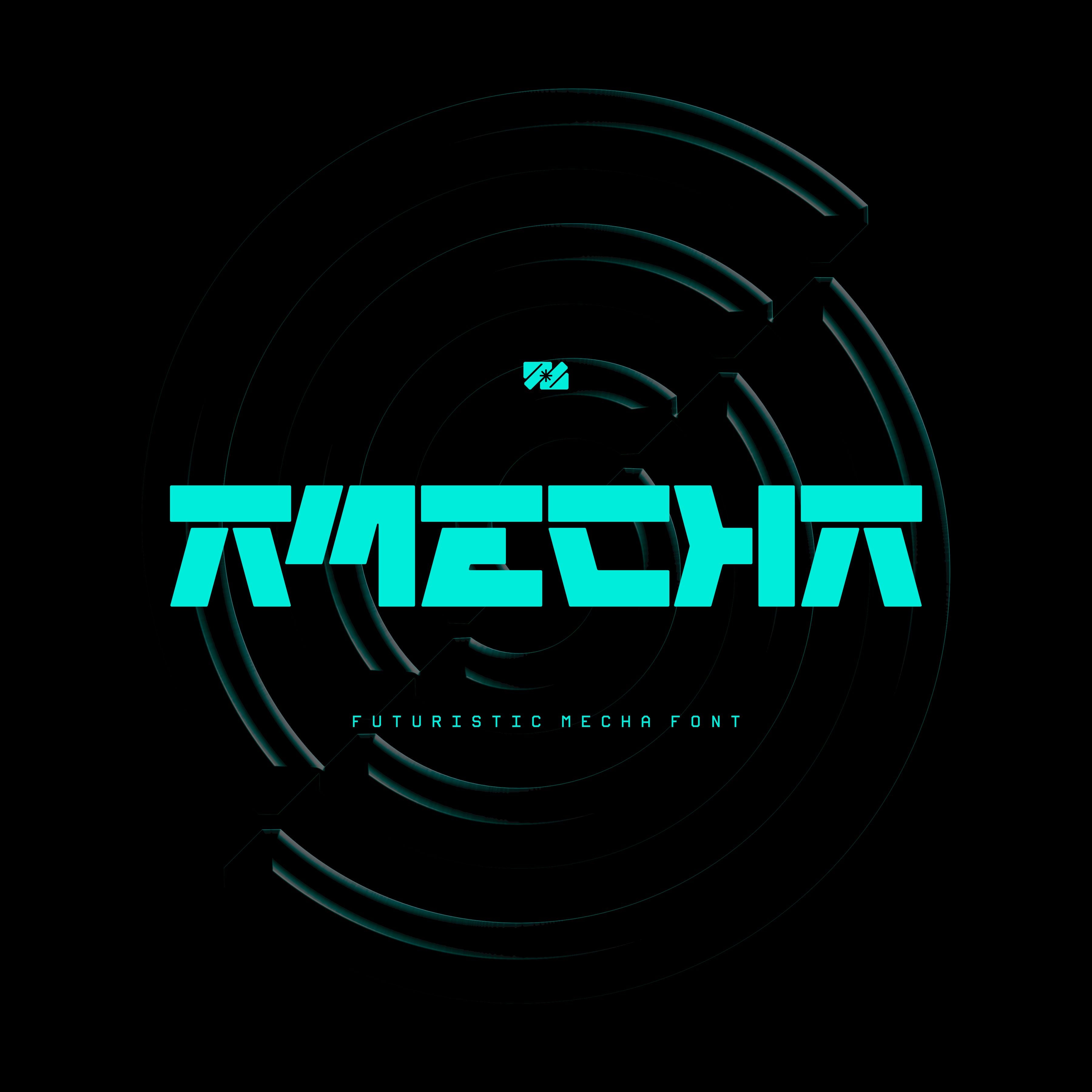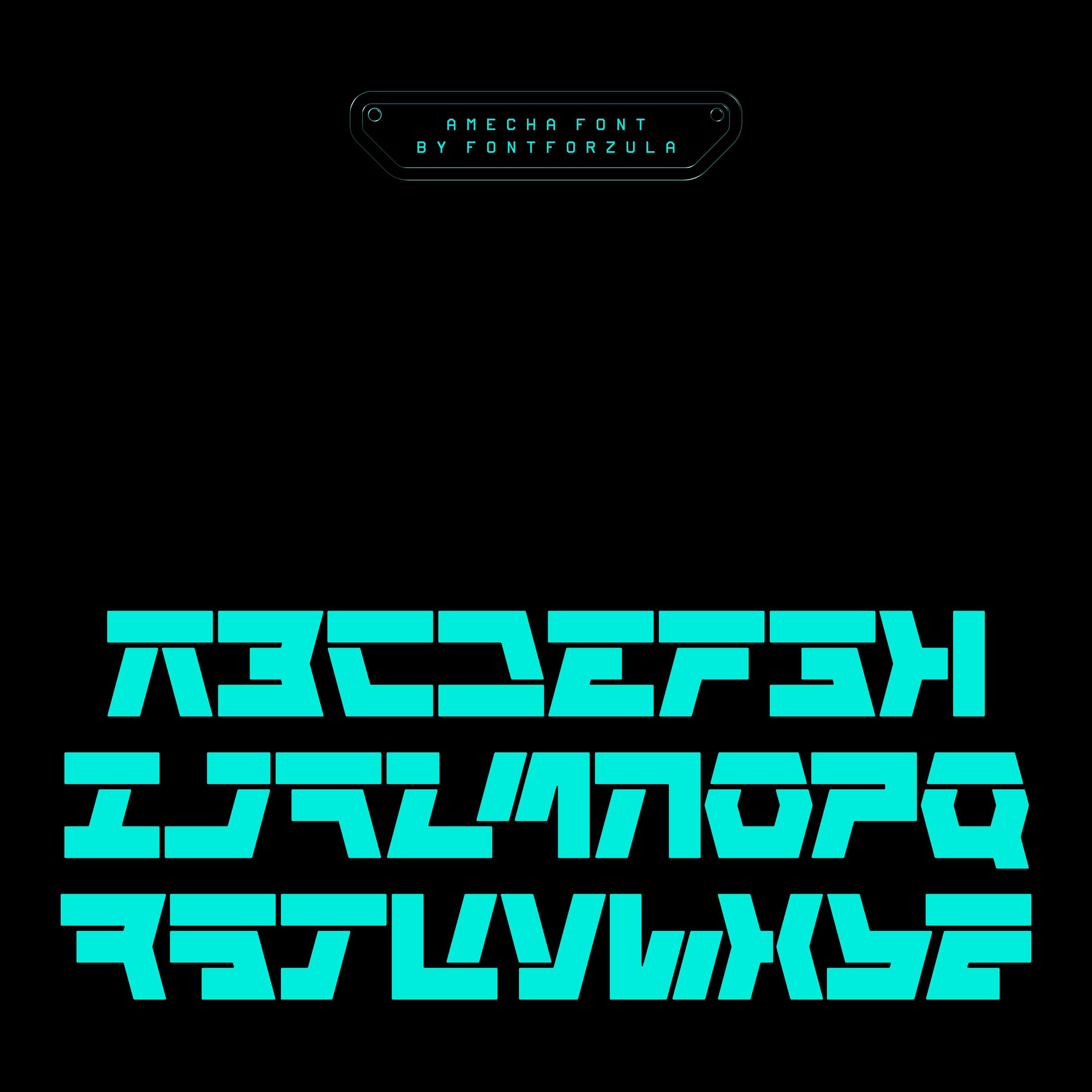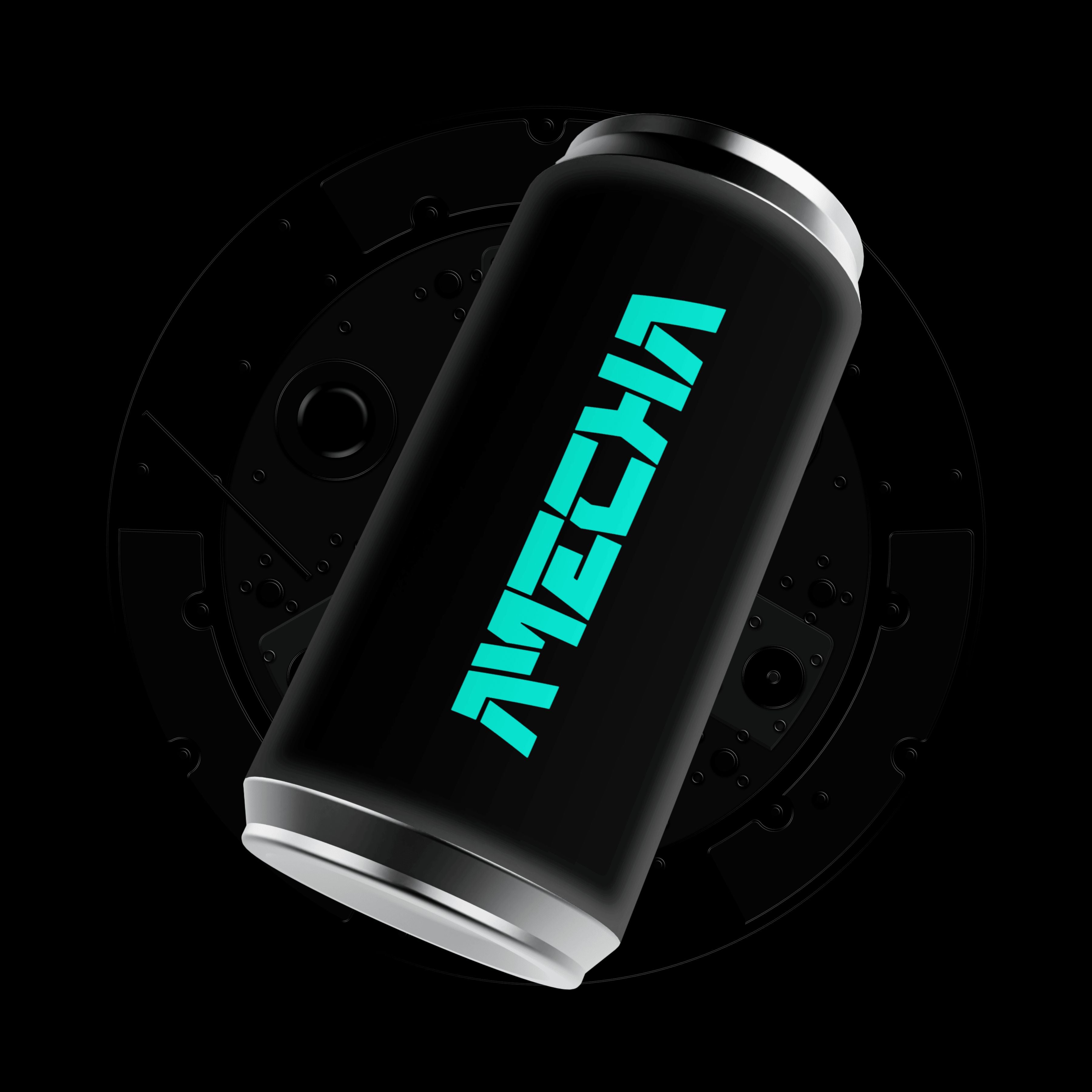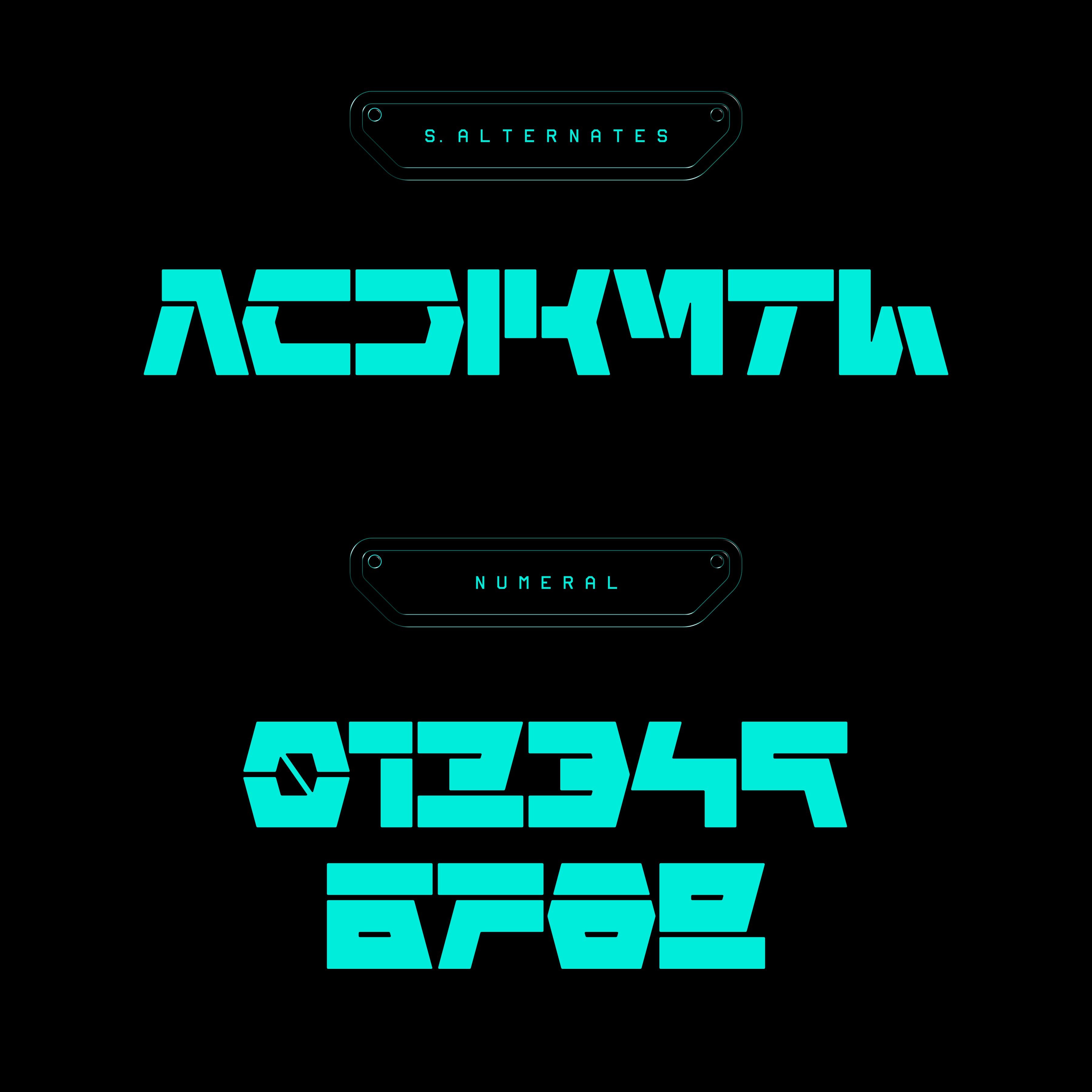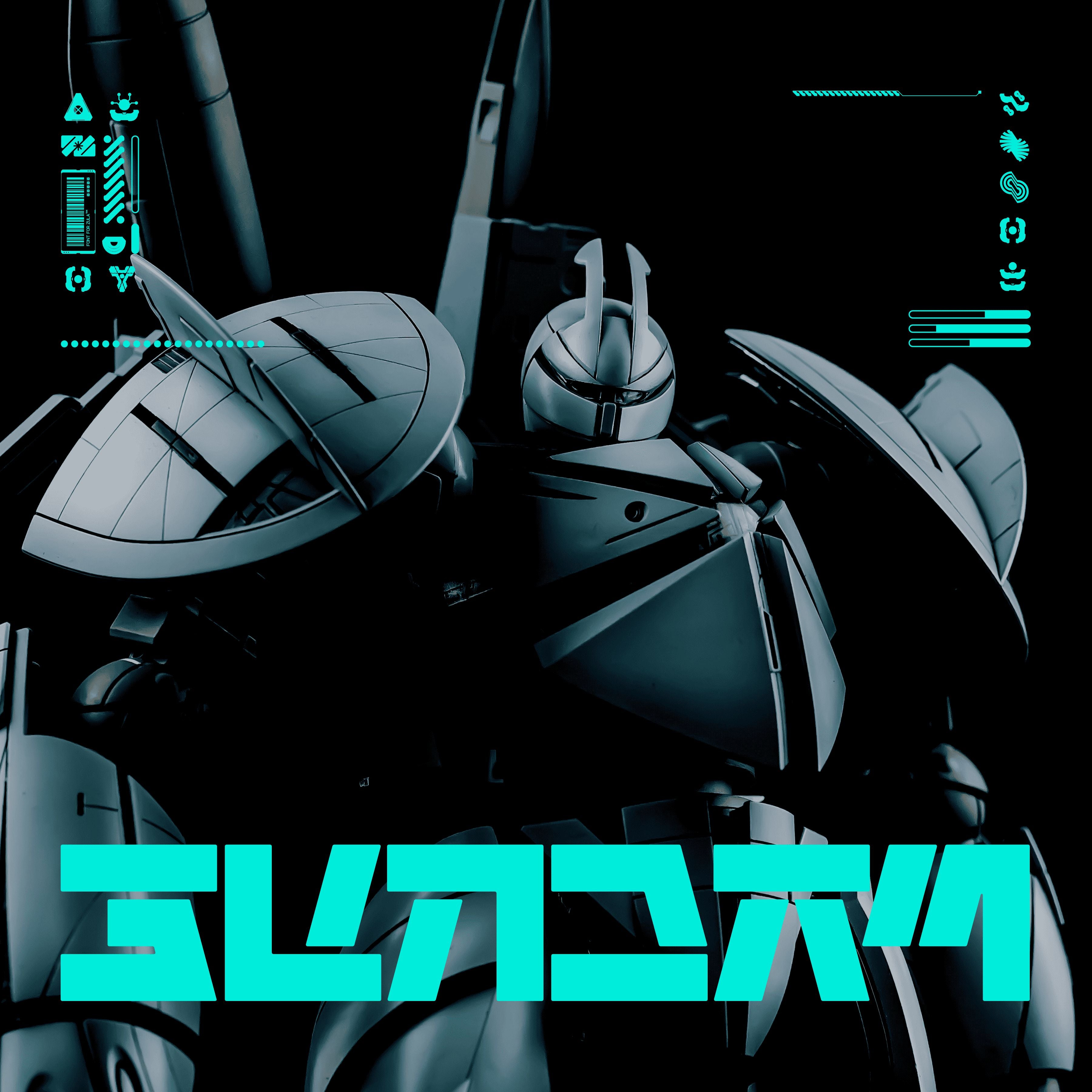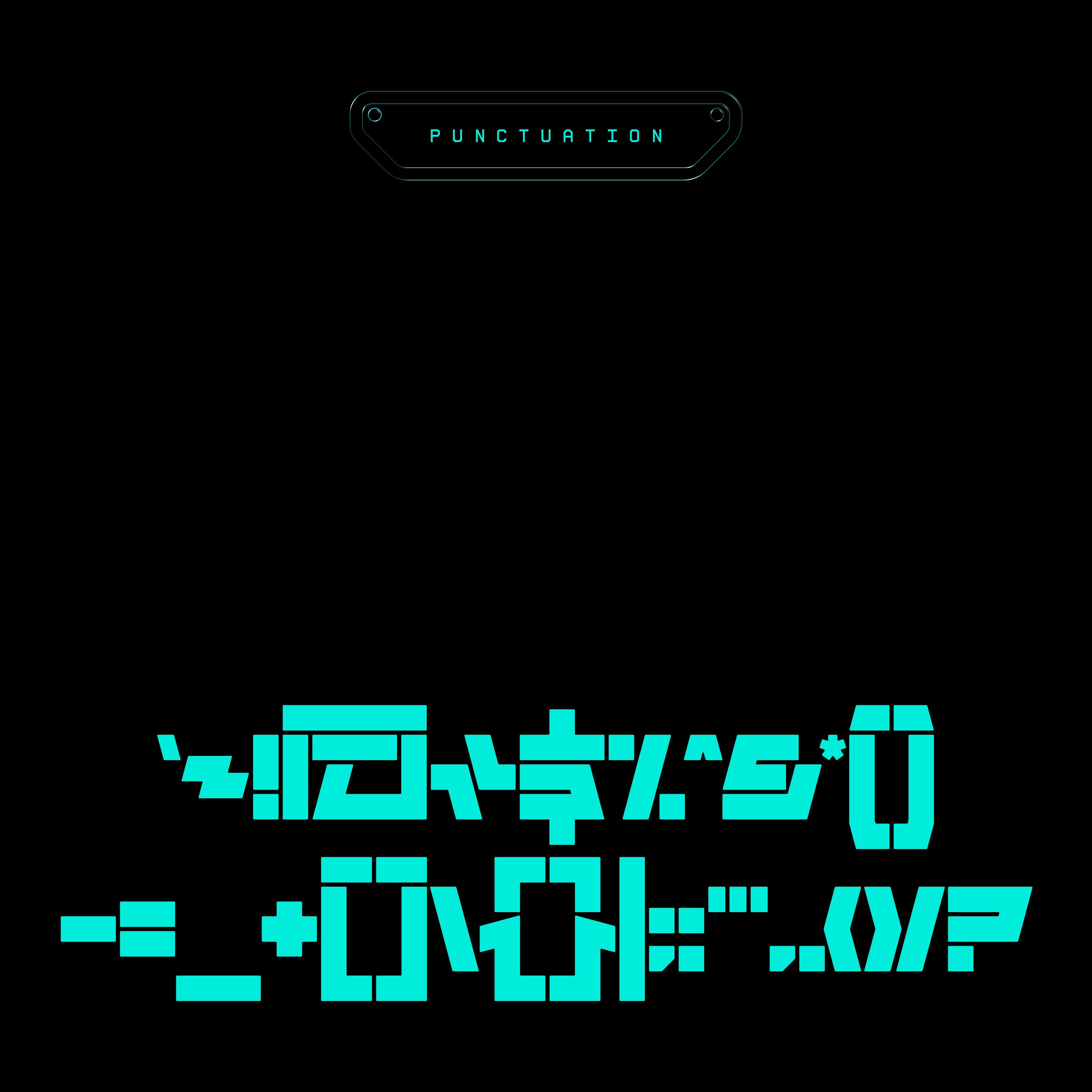
アメチャ書体
The Amecha Typeface is a futuristic, mecha-style font that includes OTF/TTF and WOFF formats, 26 letters, 8 stylistic alternates, 10 numerals, and punctuation. This modern and bold typeface is suitable for various applications.
Ideal for futuristic and cyberpunk design projects. Perfect for branding, logos, posters, and apparel, ensuring a bold and modern aesthetic that captivates audiences.